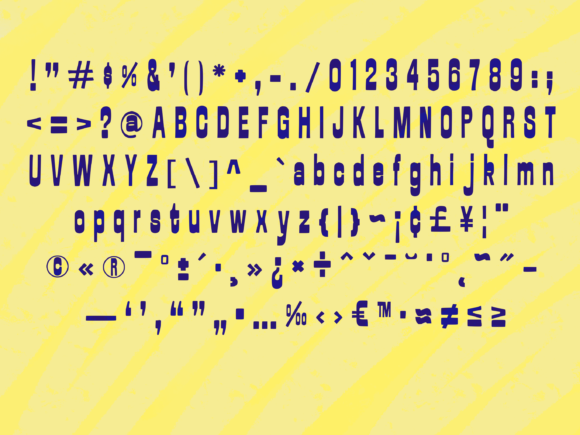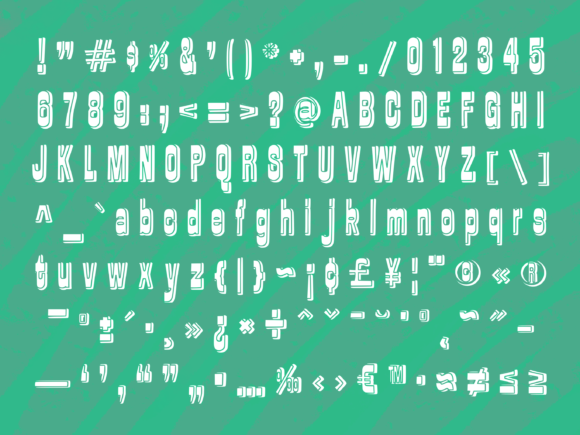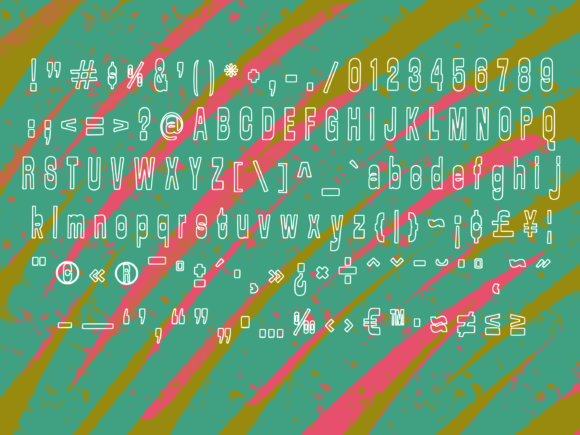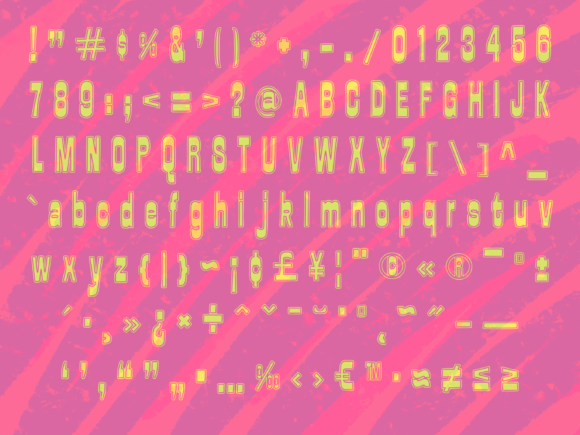
Introduction to Rocket Power Font
Have you ever stared at a blank page, trying to find the perfect font to bring your creative project to life? The frustration of searching through countless design resources can be overwhelming. But what if I told you there’s a font that can take your ideas to new heights? Enter the Rocket Power Font, an incredibly cool display font that’s about to revolutionize your design game.
With its modern yet whimsical style, the Rocket Power Font is the perfect addition to any high-quality design. Whether you’re working on a personal project or a commercial client, this font is sure to impress. Plus, with a transparent background, you can easily customize it to fit your needs. And the best part? It’s available for a free download, making it an invaluable resource for designers.
Rocket Power Font
- Unique, bold design with a futuristic aesthetic, perfect for adding a touch of excitement to your project
- Comes with a comprehensive character set, including uppercase and lowercase letters, numbers, and punctuation
Honest Review: Rocket Power Font
I recently stumbled upon the Rocket Power Font, and I must say it’s an exciting addition to my design resources. As a designer, I’m always on the lookout for unique fonts that can elevate my creative projects. This font definitely caught my attention with its bold and energetic vibe.
Here’s what I love about it: ✨ It’s a free download, which is always a bonus for designers on a budget. ✨ The font comes with a transparent background, making it easy to use in various design applications. ✨ The quality of the font is high, with crisp and clear lines that make it perfect for headings and titles.
However, there are a few limitations to keep in mind: ⚠️ The font may not be suitable for body text due to its bold nature. ⚠️ The font family is limited, so you may not find as many variations as you would with other fonts.
Overall, I’m impressed with the Rocket Power Font. It’s a great addition to any designer’s toolkit, especially for creative projects that require a bold and energetic vibe. If you’re looking for a free font that packs a punch, this is definitely worth checking out.
- Bold and energetic vibe
- Perfect for headings and titles
The Rocket Power Font is a versatile design resource ideal for various creative projects. This high-quality font can be downloaded for free, making it a great addition to your design arsenal.
The Rocket Power Font is suitable for various design projects, including logos, social media graphics, and even print materials. Its high-quality design makes it perfect for businesses and individuals looking to create a professional image.
Alternatives to Rocket Power Font
Comic Sans MS is a fun and playful font that is ideal for creative projects requiring a casual, approachable tone. It is particularly suitable for projects involving children or young adults. The font’s rounded edges and friendly feel make it an excellent choice for design resources like flyers, posters, or social media graphics. When to use: For a lighthearted and humorous design resource, such as a cartoon character or a children’s book.
Comparison to Rocket Power Font: While both fonts have a playful feel, Comic Sans MS is more casual and less edgy. Rocket Power Font has a more energetic and dynamic quality, making it better suited for high-energy projects.
Impact
Impact is a bold, sans-serif font that is perfect for design resources requiring a sense of drama and emphasis. Its high-quality, condensed shape makes it ideal for use in headlines or titles. When to use: For a high-impact design project, such as a movie trailer or a sports event promotion.
One of the standout features of Rocket Power Font is its versatility. With a transparent background and a range of customization options, this font is perfect for designers who want to add a professional touch to their work. Plus, the fact that it’s available for free download makes it an absolute must-have for any design enthusiast. So why wait? Download Rocket Power Font today and unlock its full potential for your next creative project.